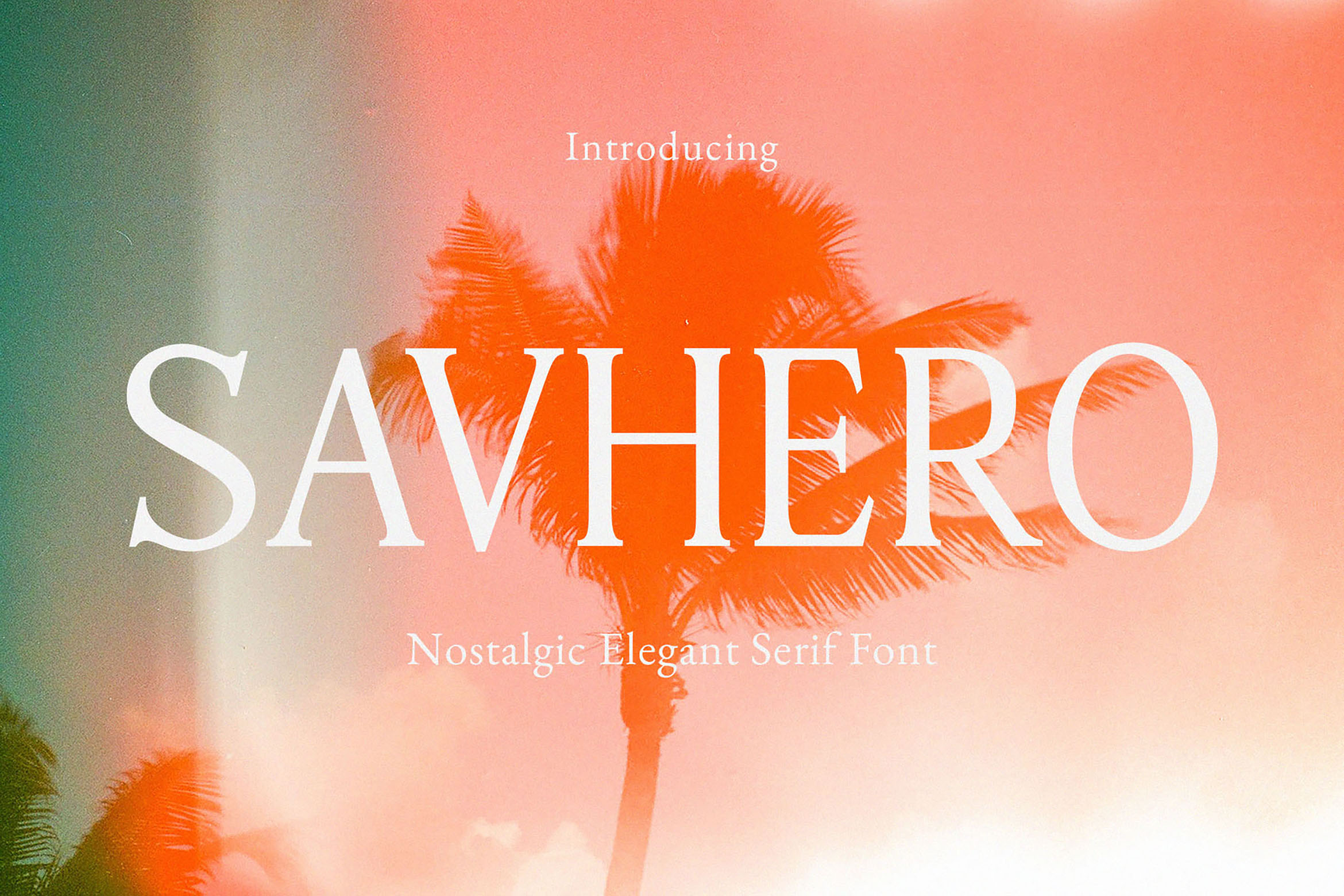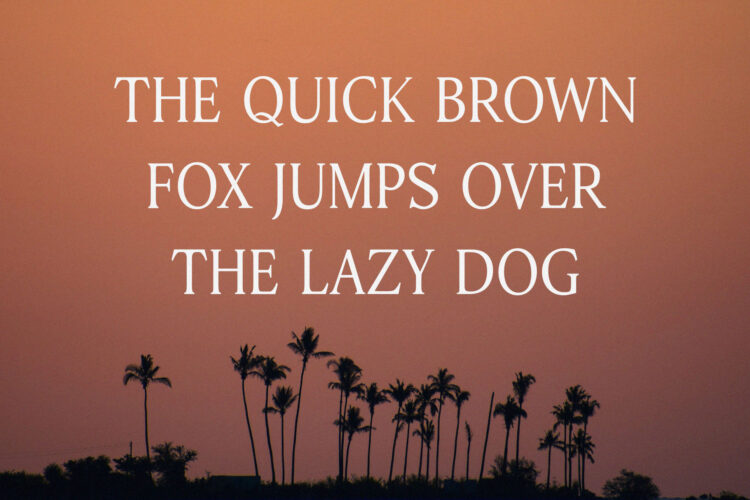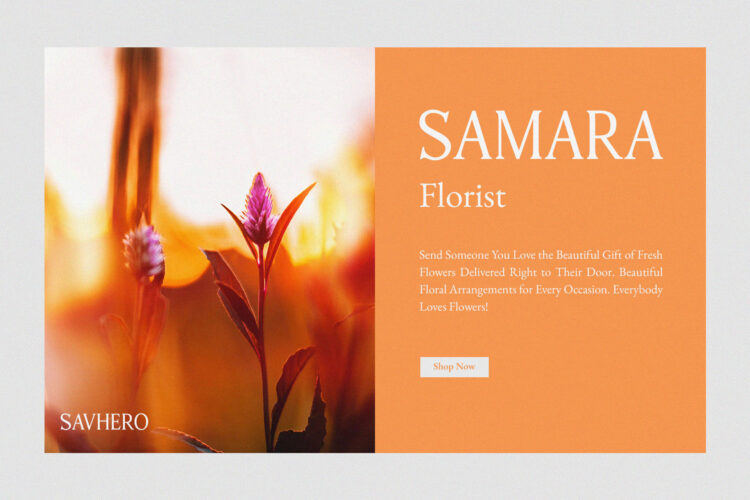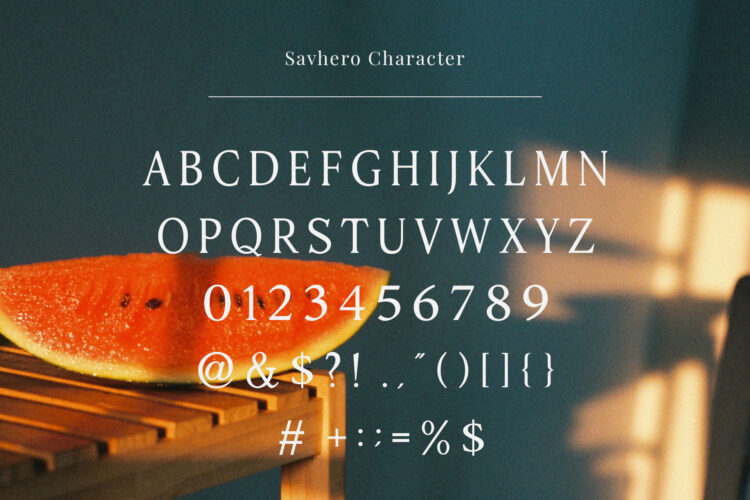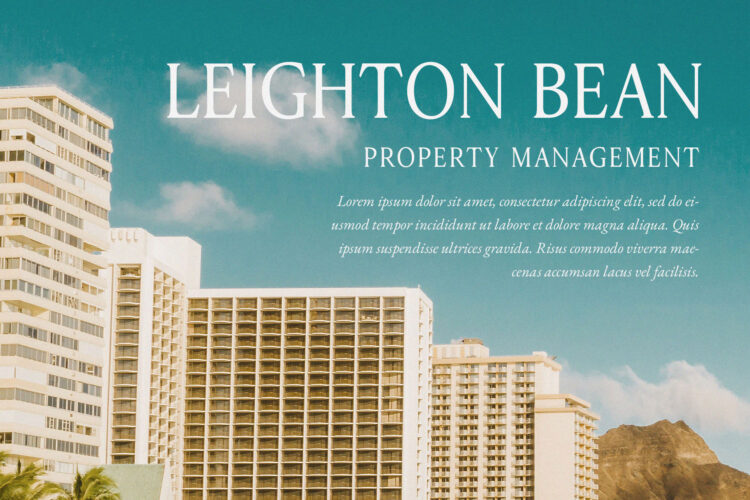
Introducing our new Savhero, modern serif font with elegant style this is perfect for branding, logos, invitation, magazines, product packaging and more.
Savhero – Nostalgic Elegant Serif